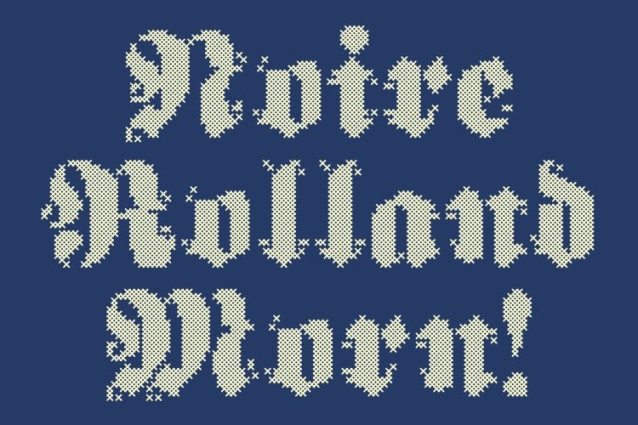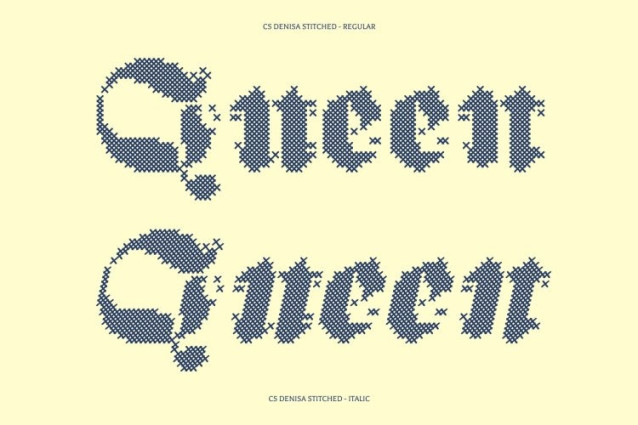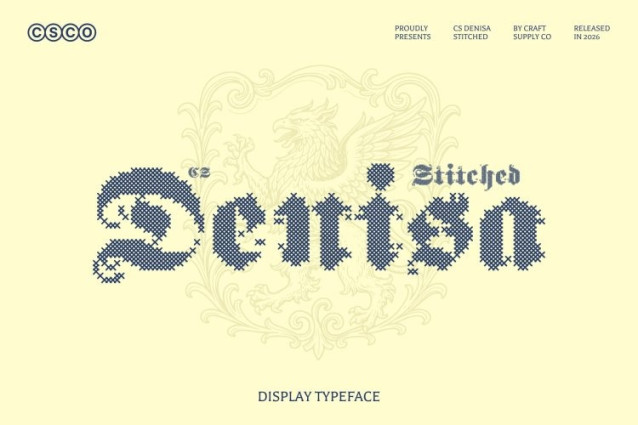
CS Denisa Stitched Font
CS Denisa Stitched Font – This is a bold blackletter fraktur display font that blends traditional Gothic aesthetics with modern visual impact. Its intricate letterforms feature sharp angles, dramatic strokes, and striking contrast, expressing strength, authority, and historical character. The bold weight enhances its commanding presence, making it perfect for designs that need sophistication and attention.
Versatile and Impactful Design
Ideal for logos, posters, branding, packaging, and editorial layouts, this font adds a sense of grandeur and authenticity to any project. Despite its ornate details, the font maintains strong readability, allowing it to work beautifully in both contemporary and heritage-inspired designs.
Typography with Strength and Authority
With its bold fraktur style, this font conveys confidence, power, and tradition. It’s especially suitable for projects that require a strong visual voice, including luxury branding, heritage themes, and formal event materials.
Historical Charm with a Modern Twist
Balancing medieval elegance with modern appeal, this font fits perfectly in vintage-inspired graphics, craft packaging, wedding stationery, and designs that celebrate history while remaining relevant to today’s aesthetic trends.